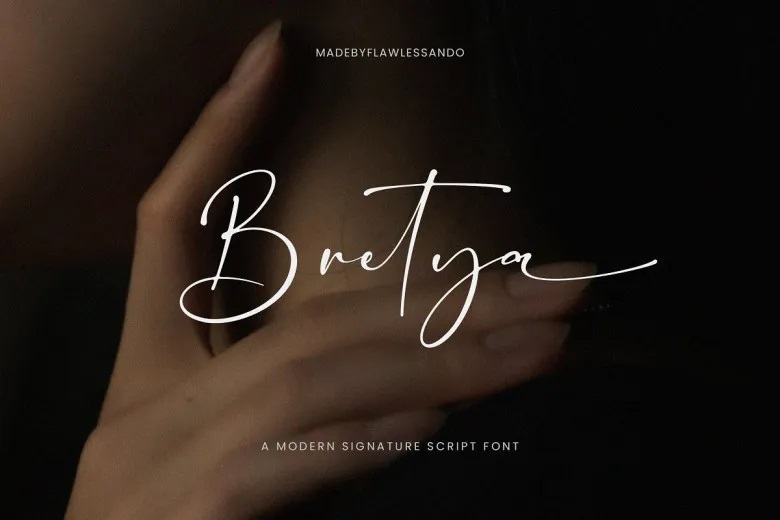
Bretya Font
Bretya is a modern signature script font that is elegant, flawless and unique. Bretya has fluid strokes and modern vibe; it is a new twist on the old classic of the signature style, ideal to use it in branding, logos, wedding invitations or personal project.
Bretya Signature Script Font